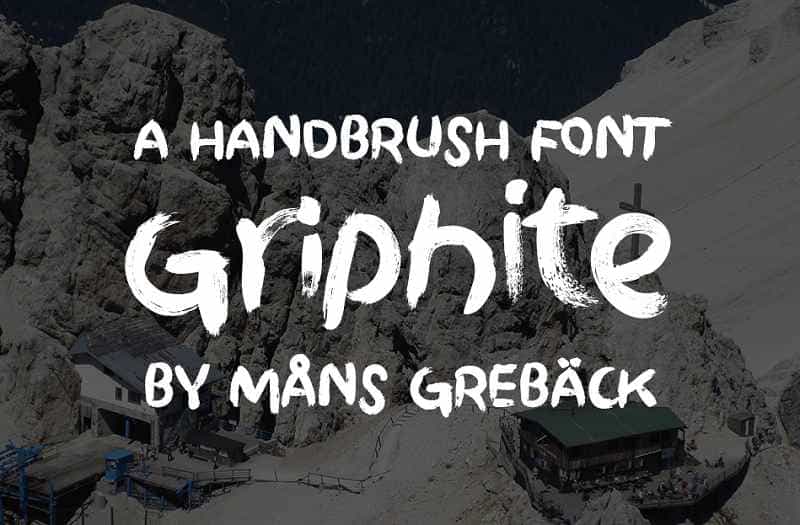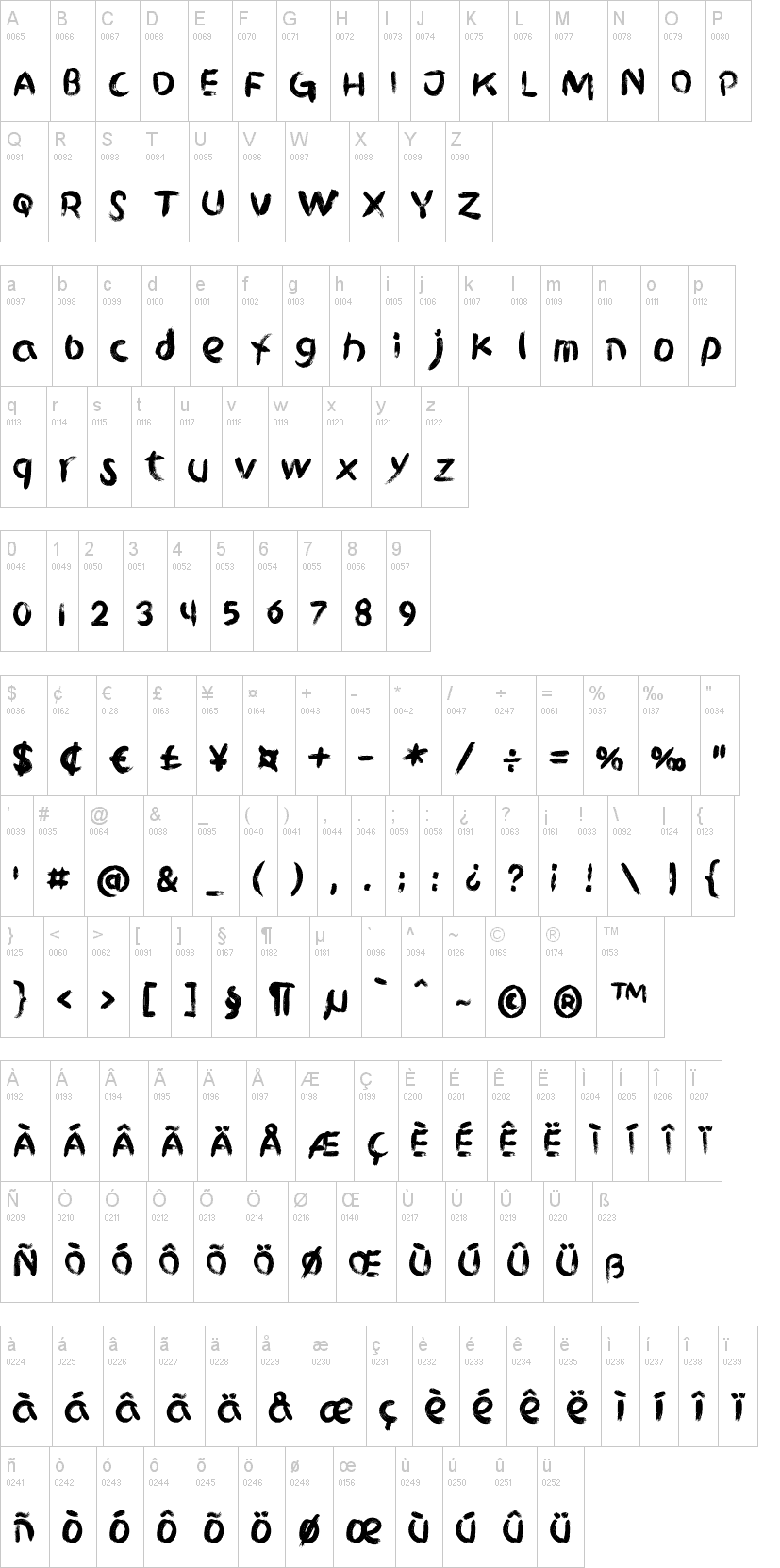
Discover Griphite Font Family, part of the Brush collection—a versatile and unique font perfect for adding a personal touch to your projects. Download it for free and enjoy crafting designs with style, from invitations to social media posts. This font is available exclusively for personal use, giving you the freedom to create without limits. Unlock your creativity with Griphite Font Family today!
Available in TTF and OTF format for free and designed by Mans Greback for personal use, the Griphite font gives bold and impressive brush font. The free version includes uppercase letters as well as special characters A member of its staff reported that he could get a printout of this finger braille and embossed character map by following these instructions (as demonstrated in Fig.